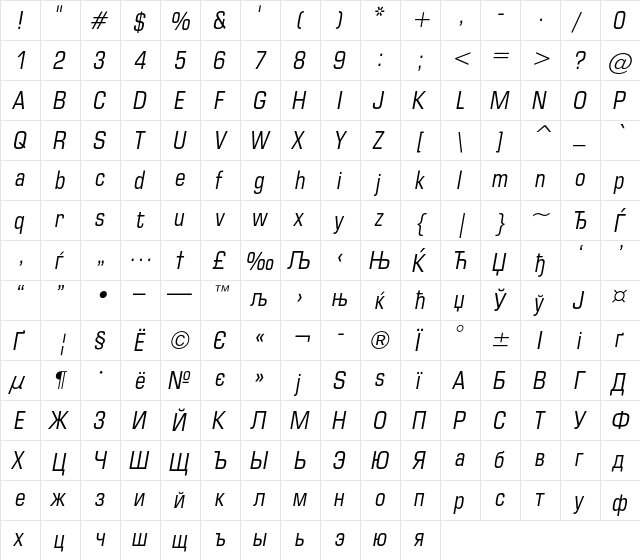
EuropeCond Italic Font Preview
EuropeCond Italic
EuropeCond Italic Font Details
Design Context for EuropeCond Typeface
EuropeCond takes a measured approach to typography — its balanced proportions and neutral character make it a reliable workhorse for both digital and print work. Its italic angle brings a sense of urgency and motion to the letterforms. Its narrow stance lets it pack a punch even in space-constrained designs.
Pro Tip: Use EuropeCond for emphasis, pull quotes, and subheadings where its slanted energy can add rhythm to the layout.